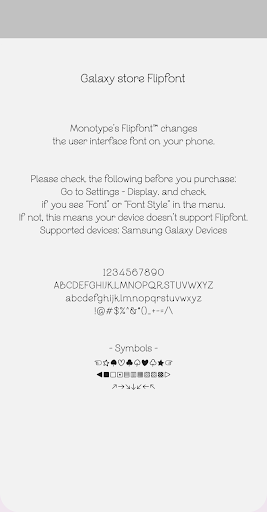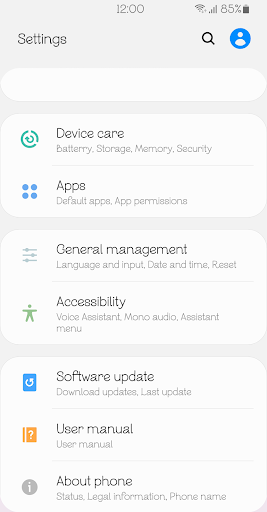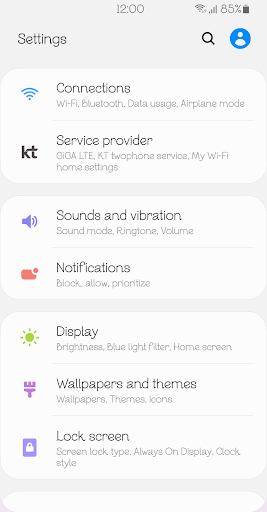
Nm LavenderSans™ Latin Flipfont
Nm LavenderSans™ Latin Flipfont is a lovely and cute font and has good readability. Customize your phone with this. Please try this font and leave your feedback.